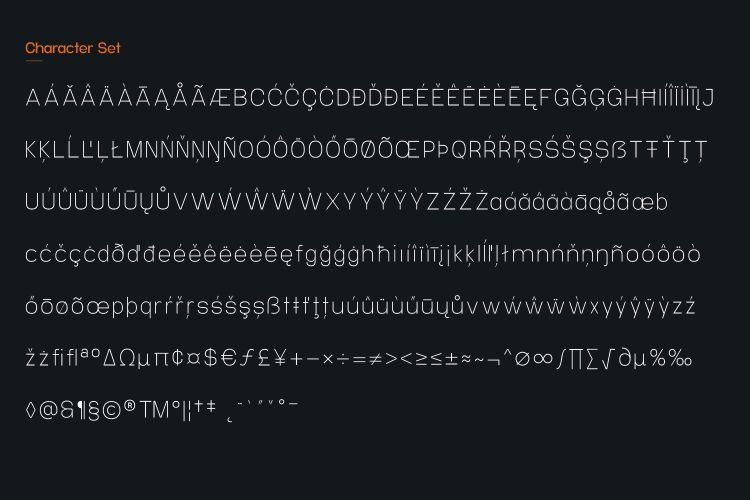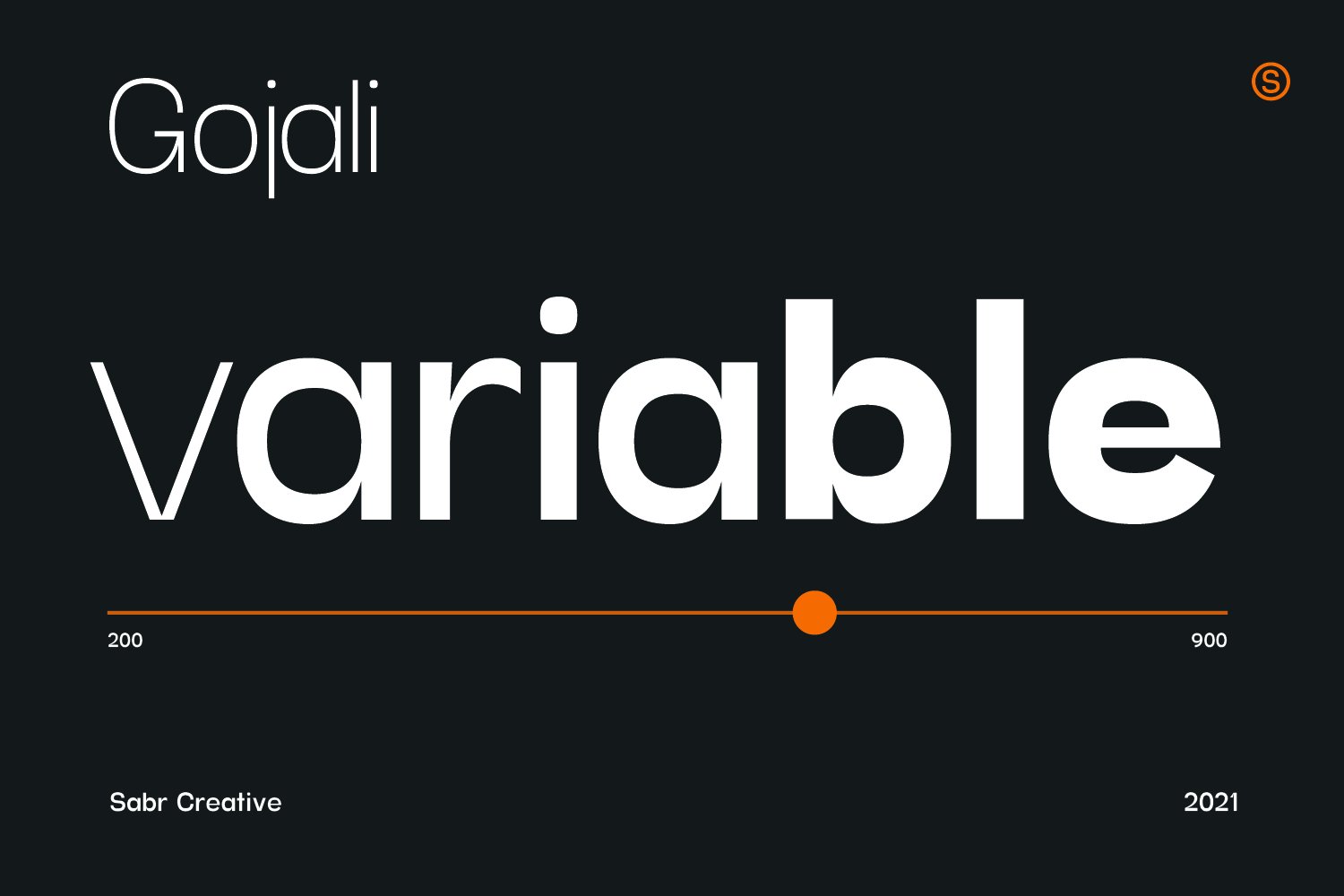
Gojali is a sleek and modern geometric sans serif font family. It offers a range of 5 weights, from Thin to Thick, combining contemporary style with its distinct softness. The design of Gojali is characterized by its minimalistic, elegant, and versatile nature, providing a unique feel and ensuring ease of reading.
Gojali was specifically created to deliver an easy-to-read text display. It is suitable for both text and display purposes, making it a perfect choice for headers, titles, posters, websites, branding, apps, and a wide range of other creative designs or projects.
Gojali features various OpenType functionalities, including standard ligatures and number variations such as old-style numerals, fractions, numerators, and denominators. It also offers extensive support for the Latin language.
With Gojali, you can effortlessly create captivating text displays with a special touch. Its soft yet strong design makes it an ideal option for crafting extraordinary and charming designs.
Gojali Variable Font